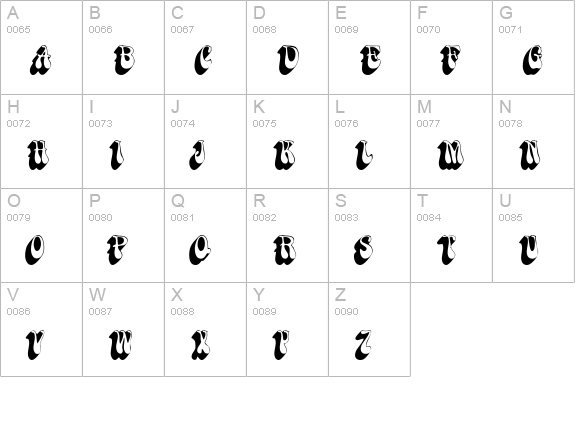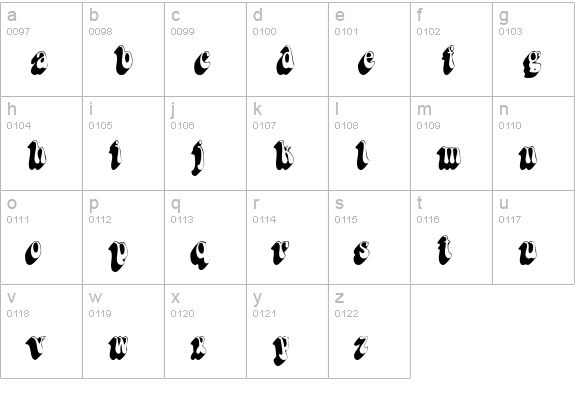
BoopShadow Font Details
Introducing BoopShadow font, a whimsical and playful typeface that adds a touch of charm to any design project. With its unique shadow effect, BoopShadow font stands out and makes a statement. This font is perfect for creating eye-catching headlines, posters, invitations, and more. What makes BoopShadow font even more appealing is that it is available for free download at FontsMarket.com. Yes, that's right - you can freely access this delightful font and use it in your personal and commercial projects without any cost. Don't miss out on the opportunity to elevate your designs with the captivating BoopShadow font. Download it now and let your creativity shine!